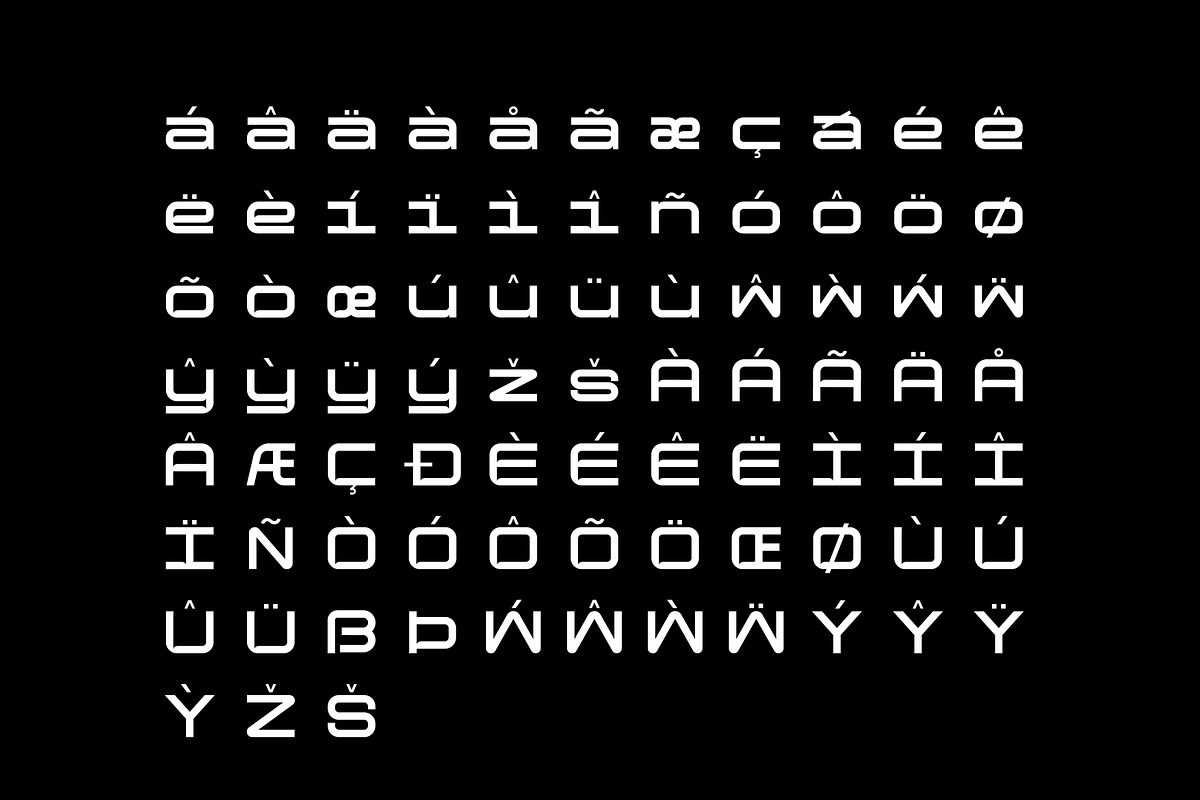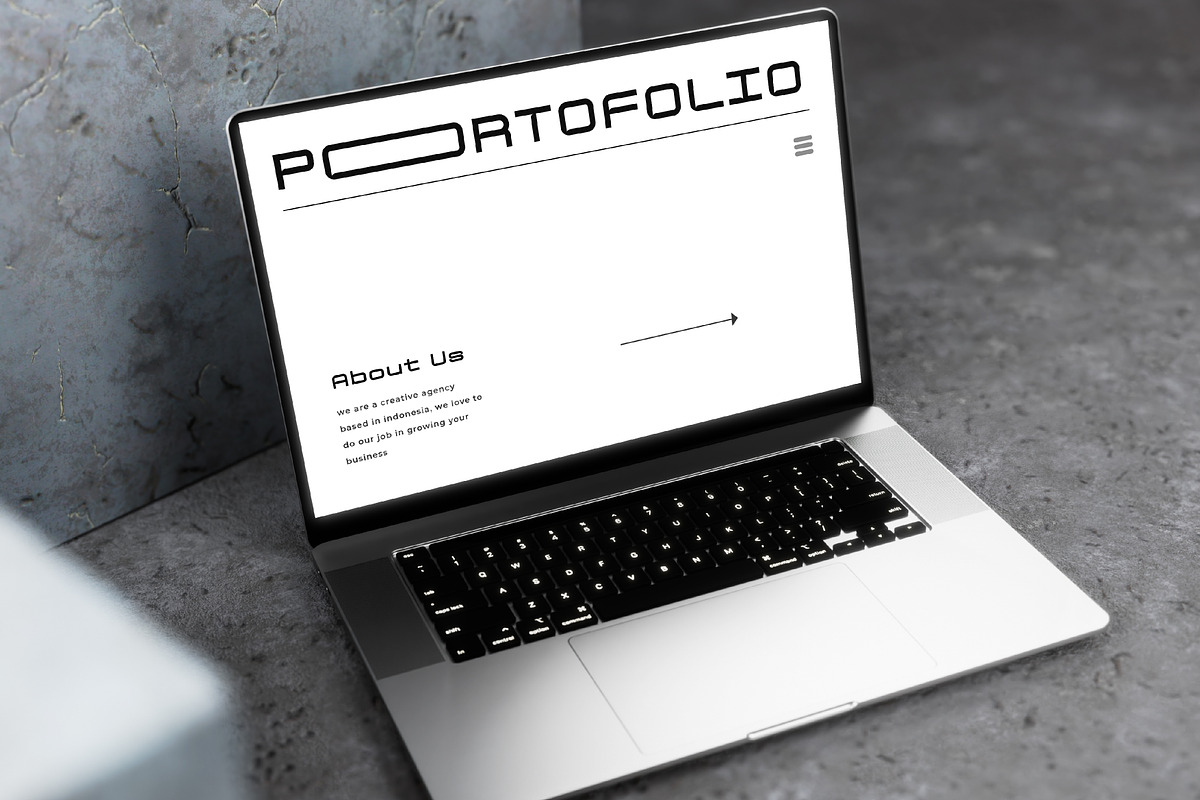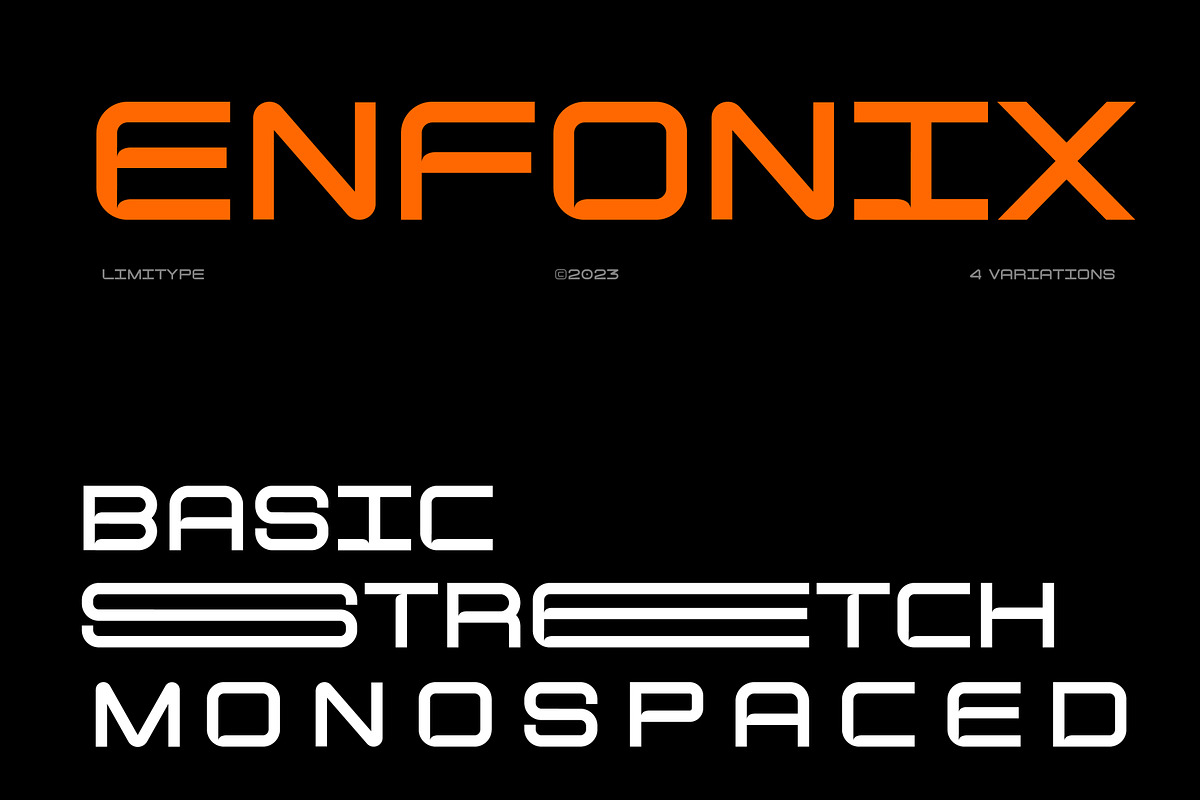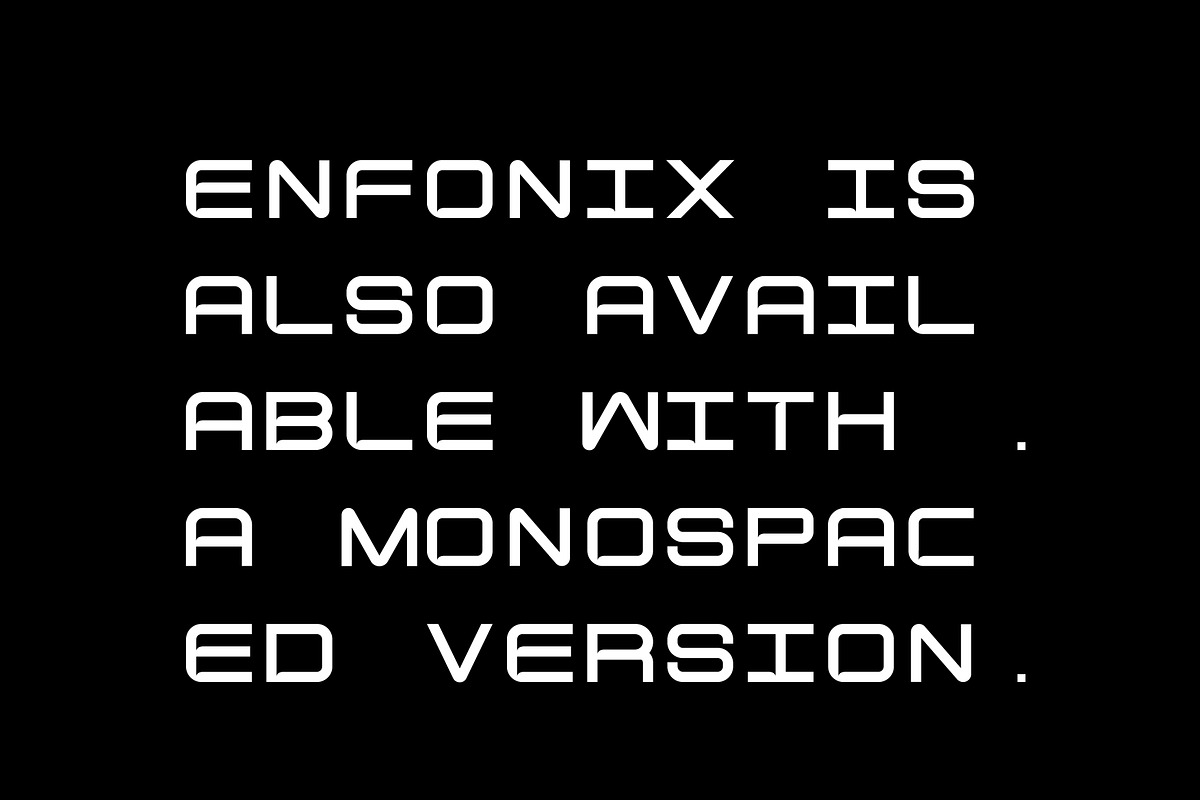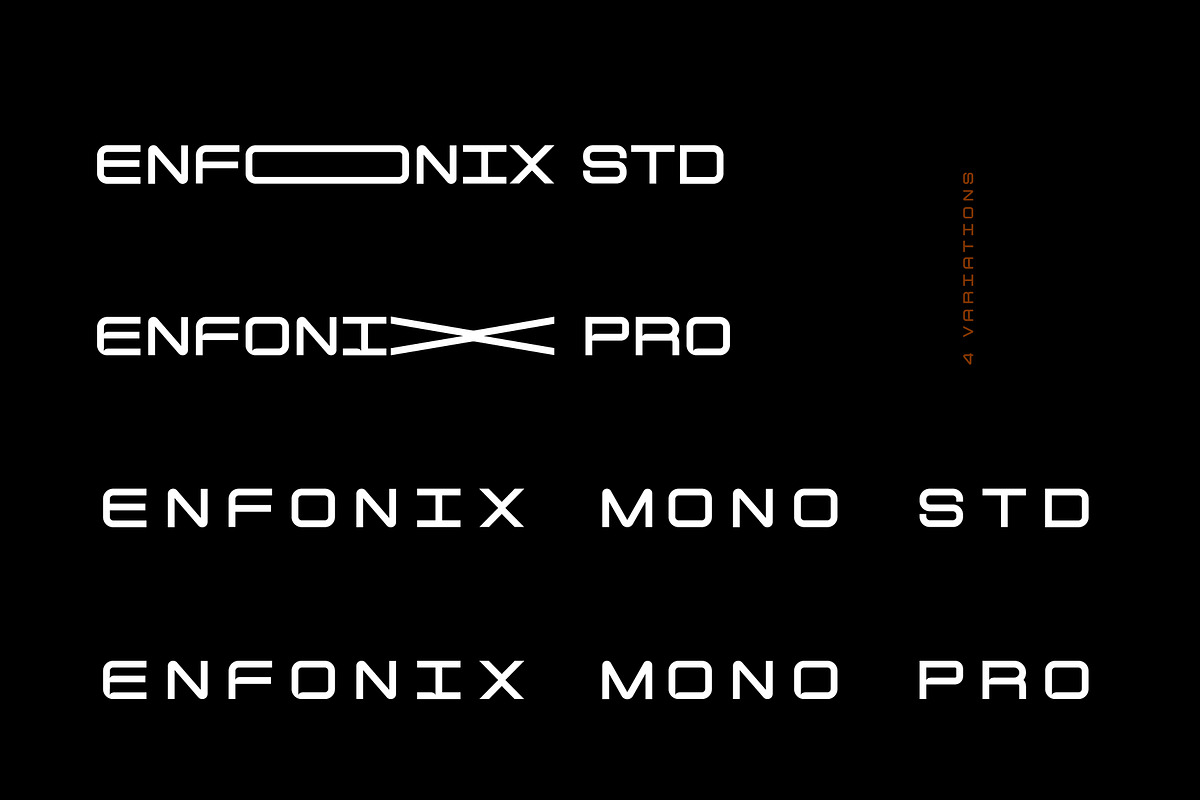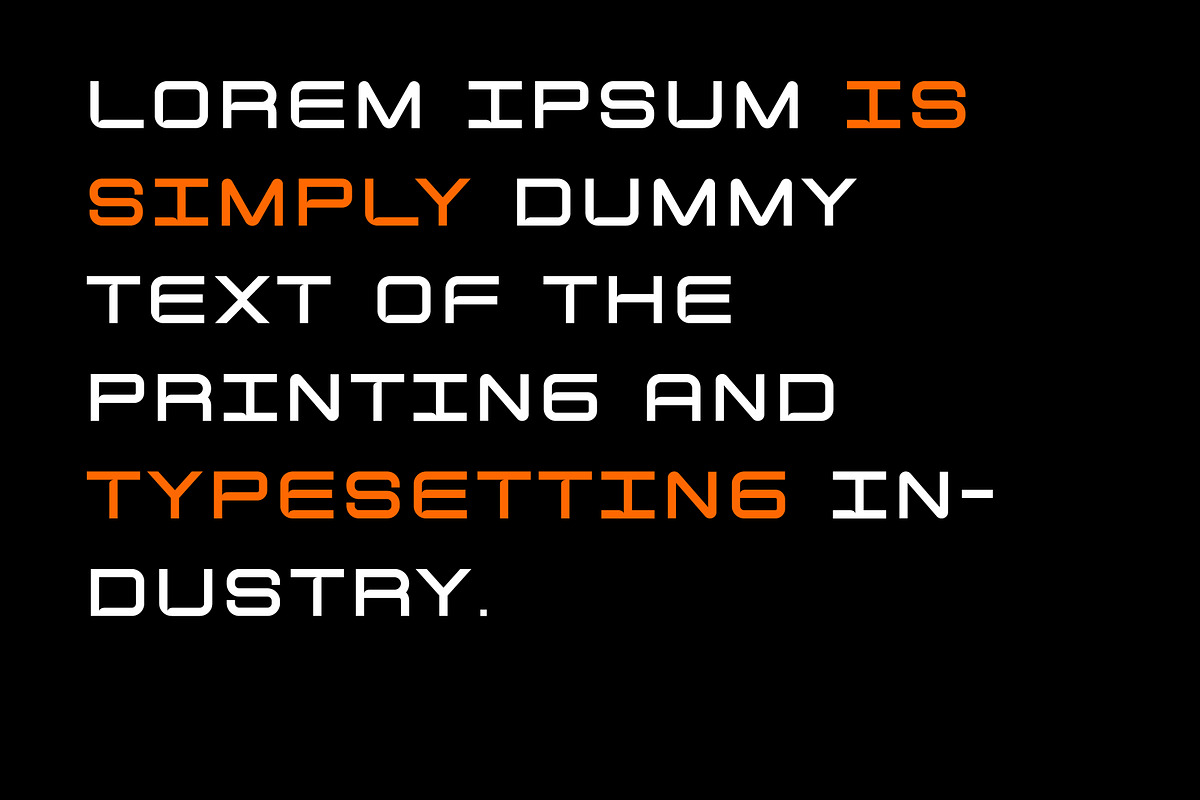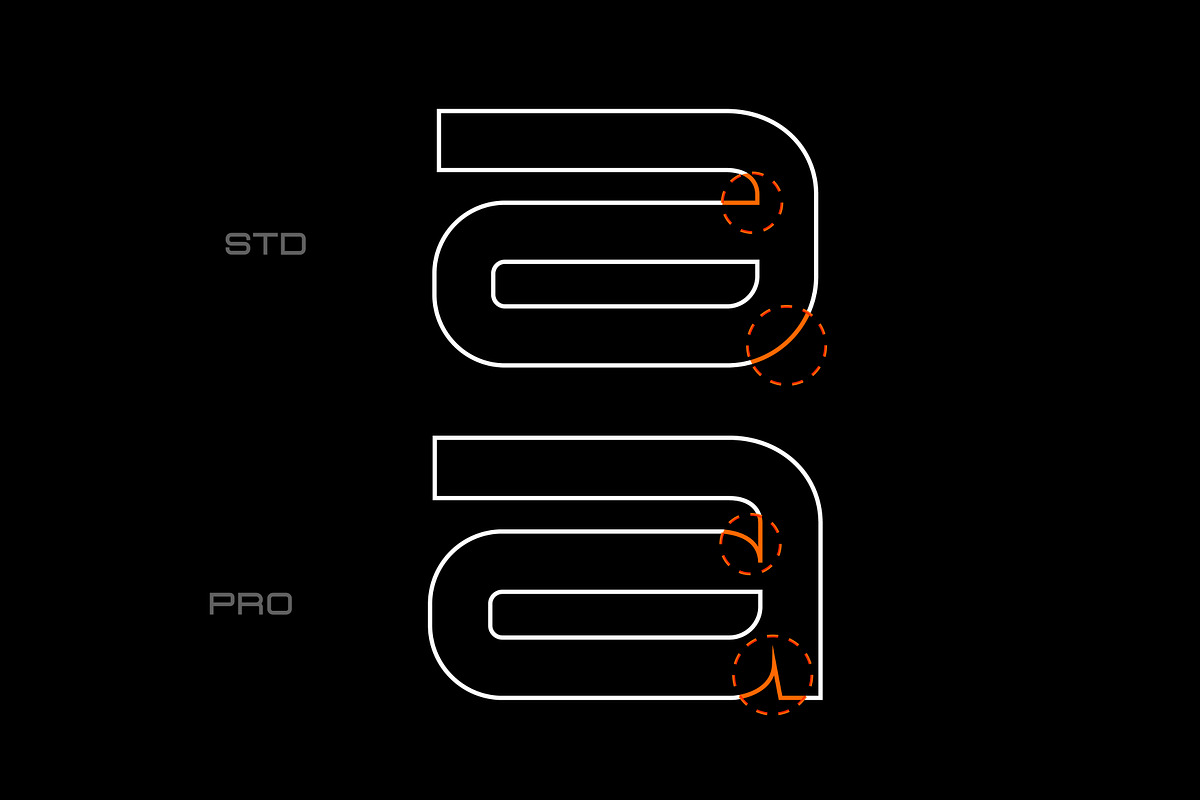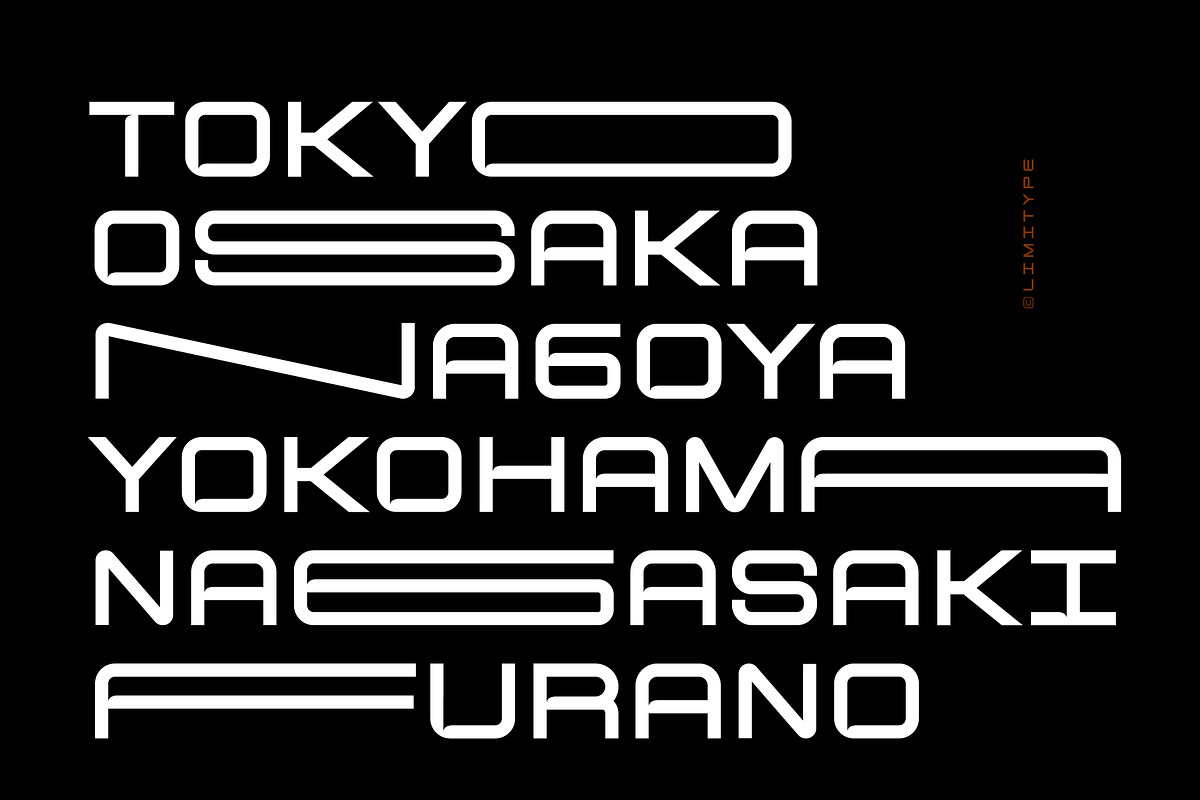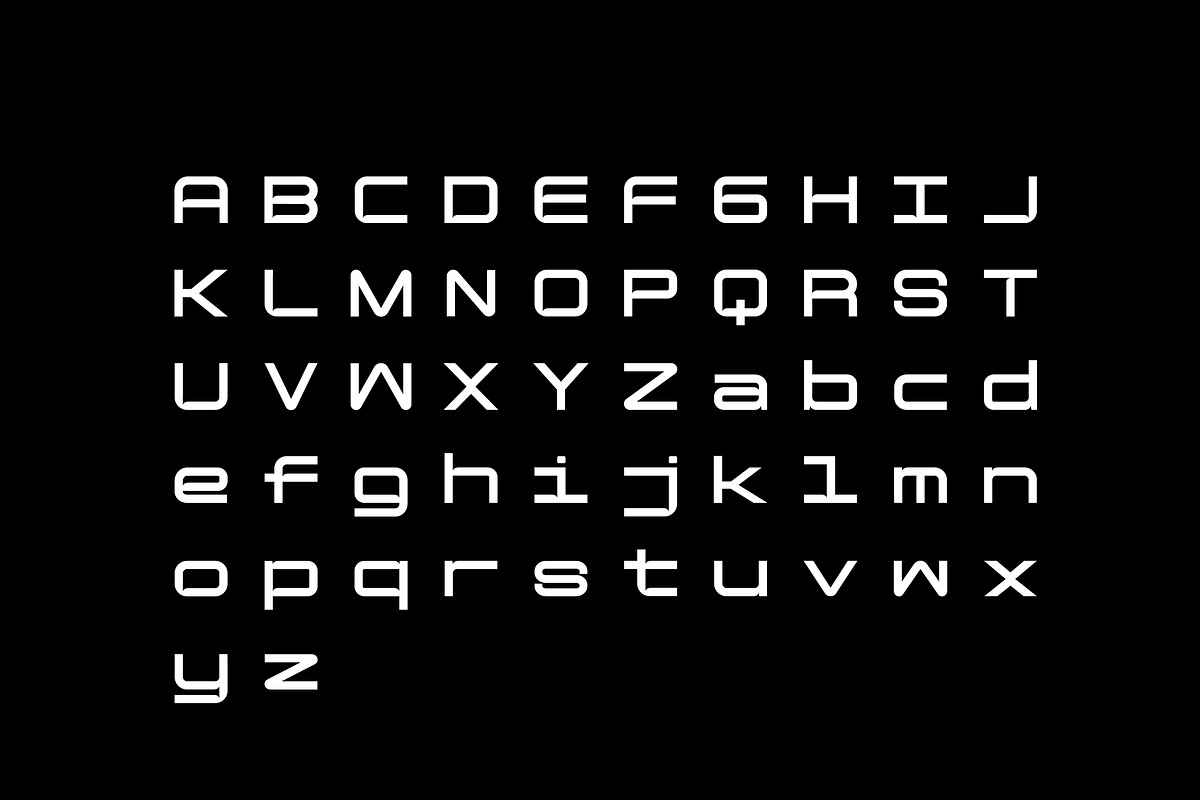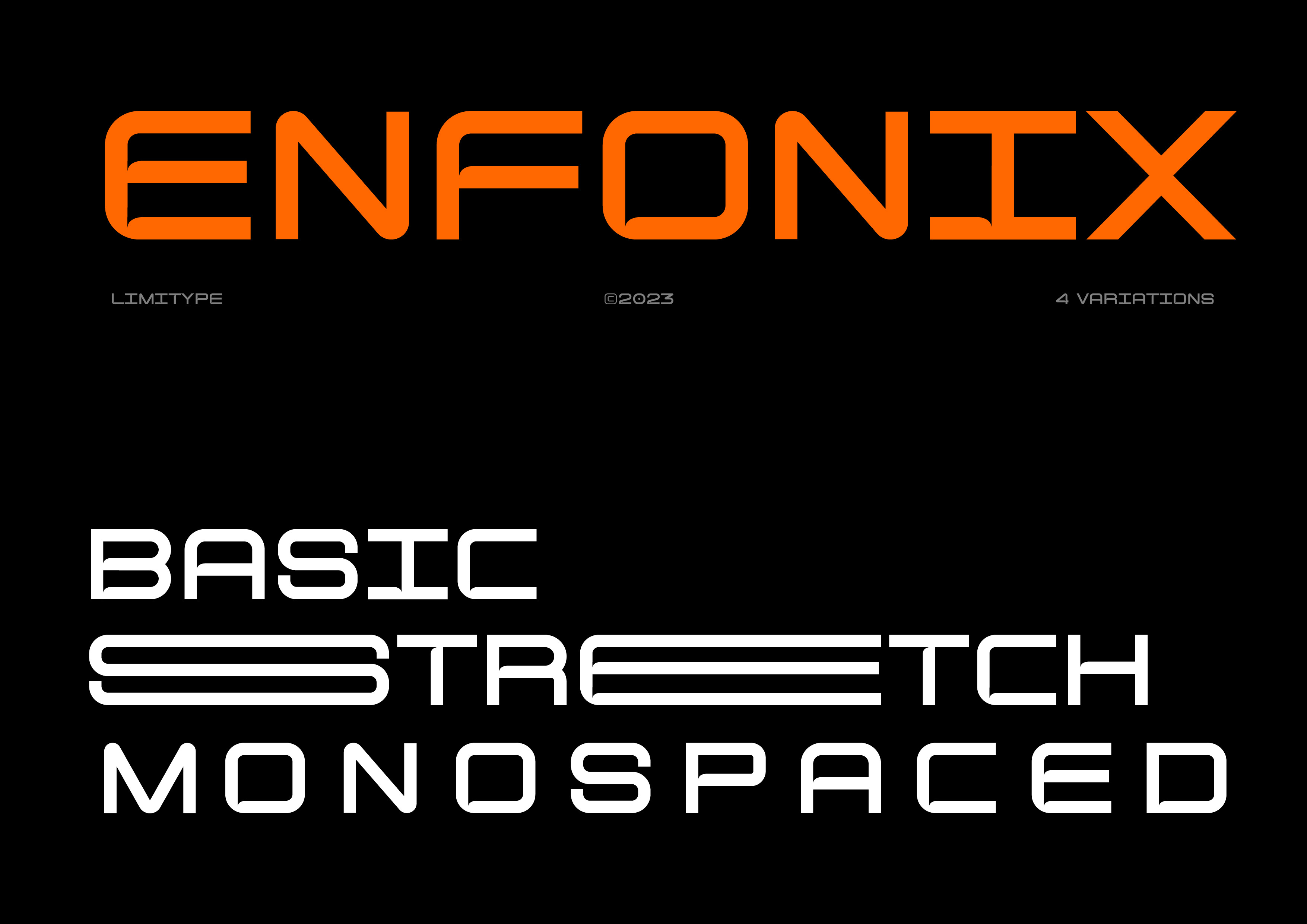
Enfonix Typeface
Enfonix is a modern sans display font suitable for the needs of logos, magazines, posters, etc. with dynamic shapes, Enfonix is equipped with 3 alternative width sizes and 2 typeface shapes (Std and Pro). Enfonix is also available in a monospaced style
Enfonix Std:
- Standard form
- 3 alternative width variations ( Strecth Font )
- uppercase and lowercase
- symbols & numbers
Enfonix Pro:
- More unique and proportional typeface
- 3 alternative width variations ( Strecth Font )
- uppercase and lowercase
- symbols & numbers
Enfonix Mono Std:
- Standard form
- only one width variation
- Monospaced
- uppercase and lowercase
- symbols & numbers
Enfonix Mono Pro:
- More unique and proportional typeface
- only one width variation
- Monospaced
- uppercase and lowercase
- symbols & numbers